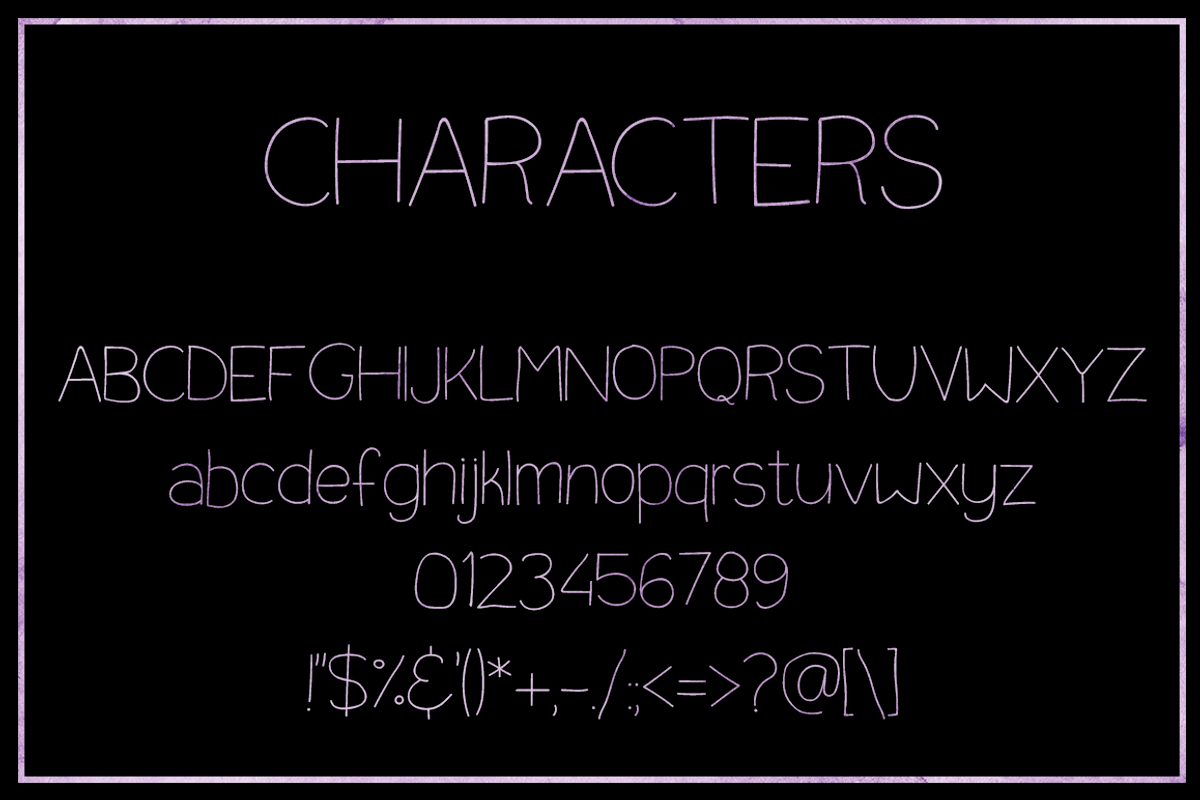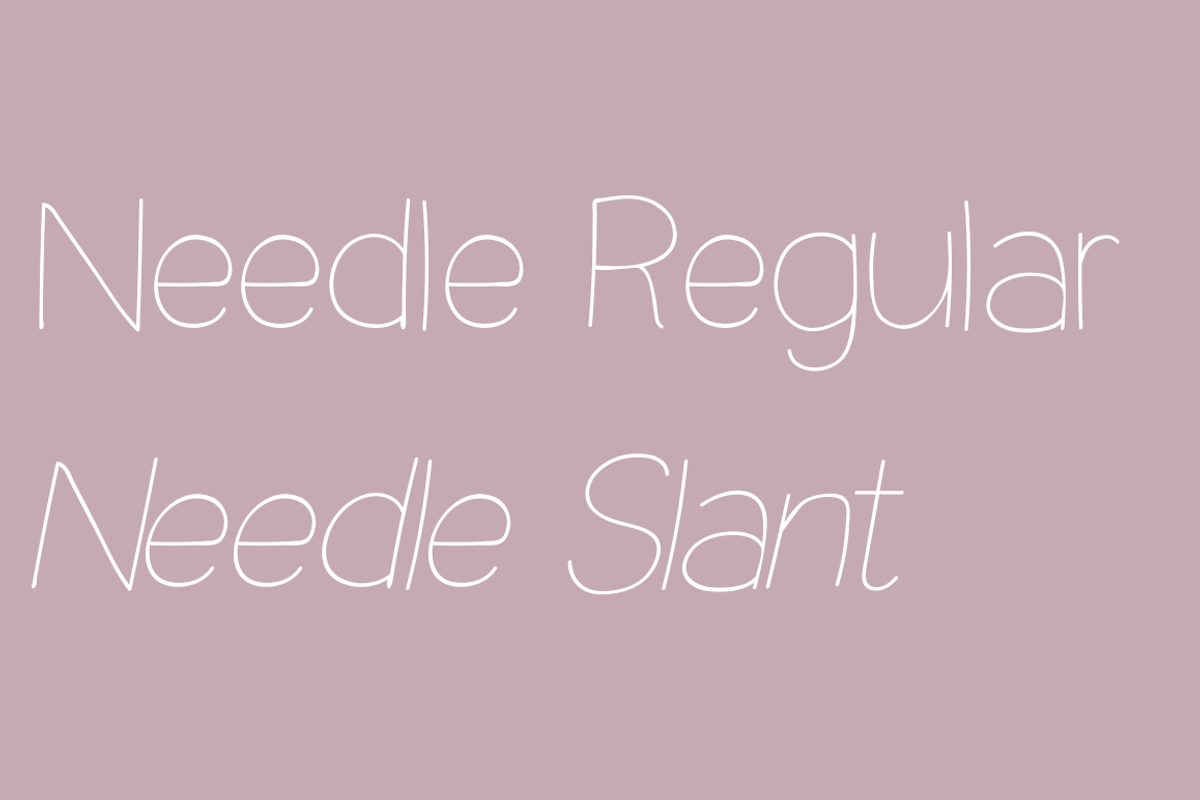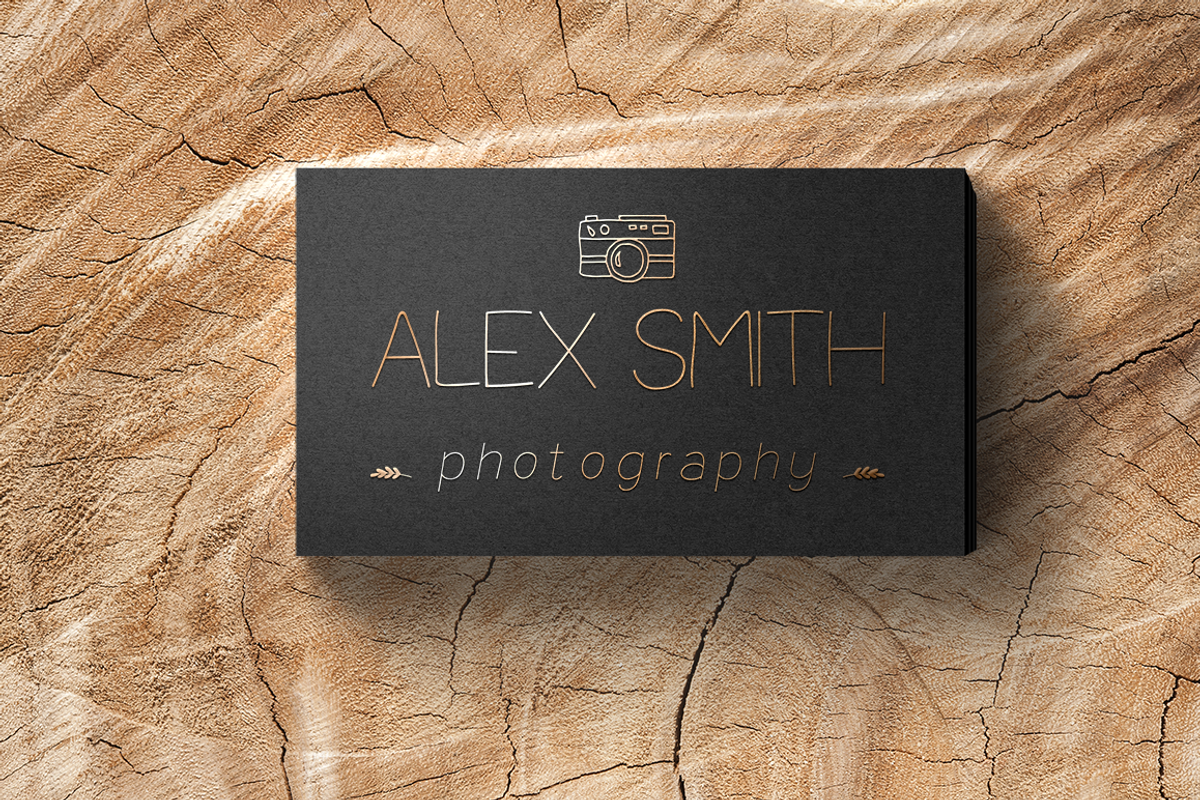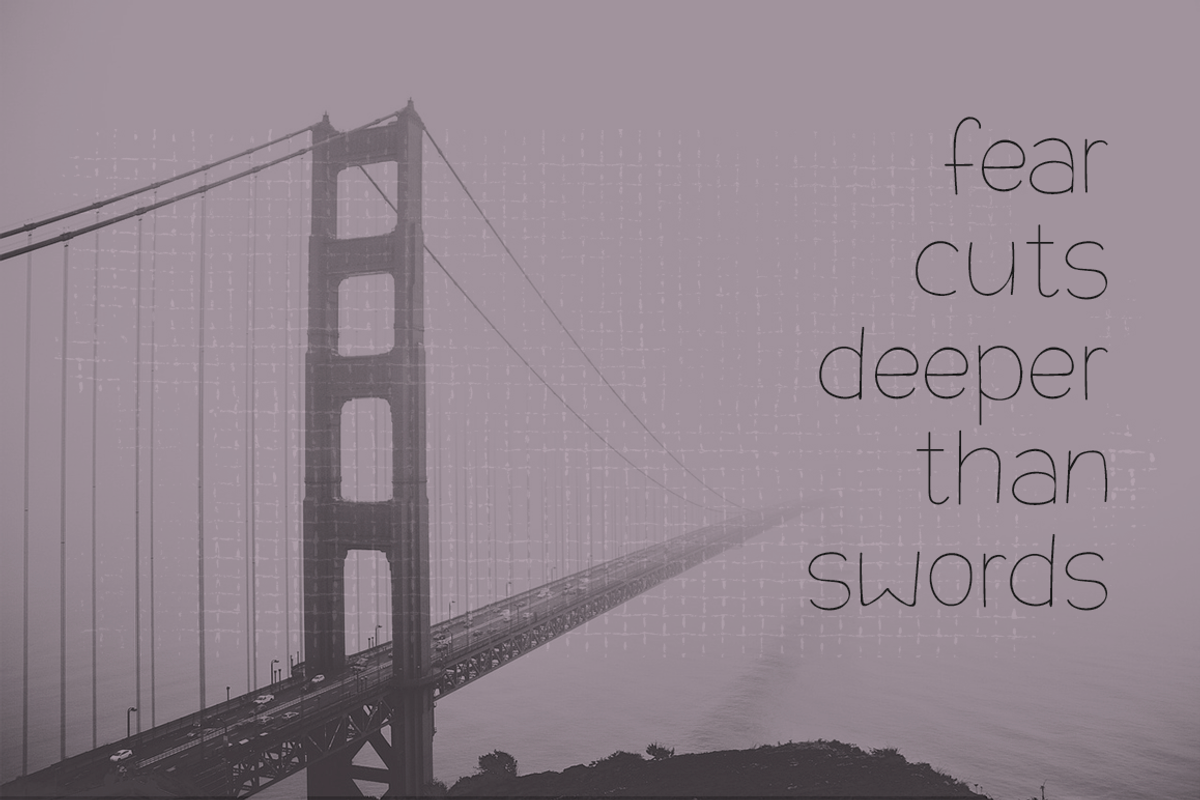
Needle Sans Serif Font
Needle Sans Serif Font by Caracol is a font selected for branding, posters, packaging, typography.
- It comes in 2 styles: regular and slant, and includes multilingual support.
- Needle Regular
- Needle Slant
Why Needle Sans Serif Font is worth a look
Needle Sans Serif Font by Caracol fits naturally into Branding, posters, packaging, typography.